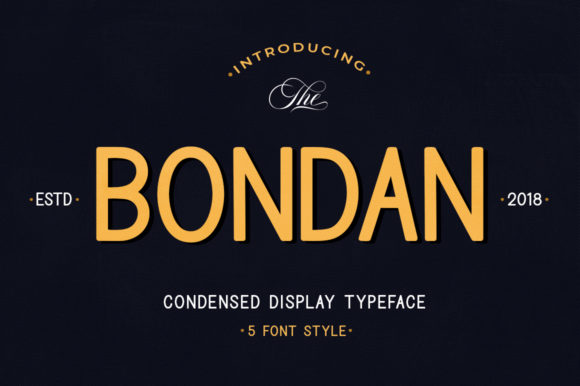
The Bondan Family Font: A Modern-Vintage Sans Serif for Creative Projects
An Honest Review of Bondan Family Font
• ✨ Modern-Vintage Aesthetic: Bondan’s sans serif design strikes a perfect balance between modern simplicity and vintage charm.
• ✅ Versatility: This font family is incredibly versatile, making it suitable for a wide range of applications, from branding and magazines to posters, logos, and website titles.
• 💡 OpenType Features: Bondan comes with a range of OpenType features, including stylistic alternates and glyphs, which can add a creative twist to your designs.
While Bondan is an excellent font, there are a few minor quirks to be aware of:
• 🤔 Some Characters May Require Adjustment: A few characters, like the uppercase ‘Q’ and ‘J’, might require manual adjustment to ensure optimal spacing and alignment.
The Story Behind Bondan Family Font
The Bondan Family Font was designed with the goal of creating a modern, yet nostalgic sans serif font. The designer aimed to craft a font that would be versatile, legible, and visually appealing. Inspired by classic typography and modern design trends, Bondan was born.
Q: What is the Bondan Family Font?
A: The Bondan Family Font is a sans serif font designed with a modern and vintage feel, suitable for a wide range of creative projects.
Q: Is Bondan a script font?
A: No, Bondan is a sans serif font, not a script font.